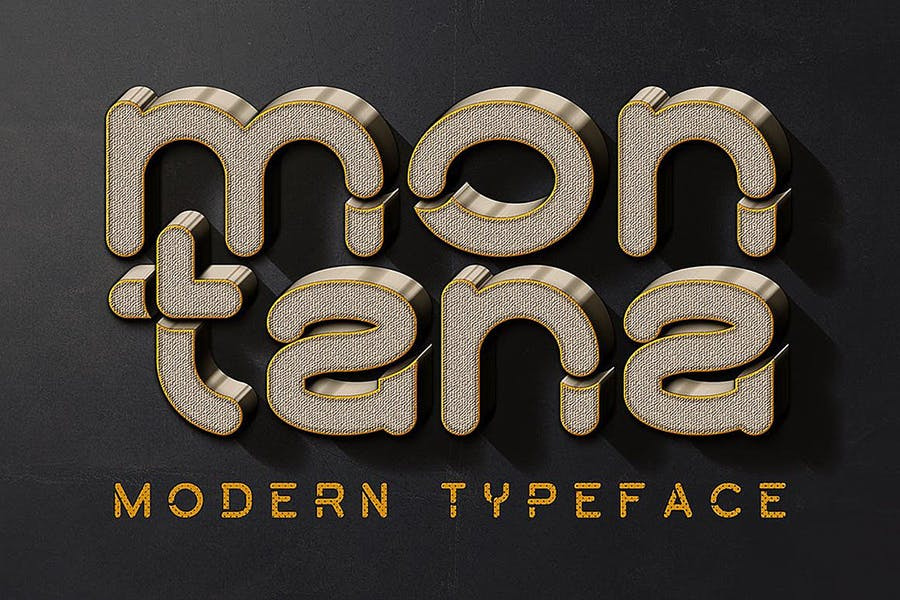
Montana Font
Montana Font is perfect for rugged outdoor brands, mountain adventure companies, wilderness lodge signage, authentic western restaurants, outdoor gear retailers, national park communications, ranch lifestyle branding, hiking trail materials, rustic cabin designs, and authentic American frontier heritage.
Montana Font creates excitement because it embodies the untamed spirit and majestic beauty of the American West with its bold letterforms and frontier-inspired character design. The font's strong presence and wilderness aesthetic instantly convey rugged authenticity and outdoor adventure, making any brand appear genuinely connected to western heritage and mountain culture. Its carefully crafted frontier details and mountainous character create an immediate sense of western authenticity that captivates audiences seeking genuine outdoor experiences, adventure quality, and products that celebrate the transformative power of western wilderness and frontier spirit.
The Montana Font family includes multiple weights and styles: Regular, Bold, Light, Medium, Italic, Condensed, Extended, Rugged, Western, and Frontier versions. Each variant maintains the font's signature western character while offering different levels of frontier styling and outdoor authenticity suitable for various adventure and western heritage applications.
This powerful typeface brings the authentic spirit of the American frontier into contemporary outdoor design with remarkable strength and western appeal. Montana Font Free Download provides outdoor brands and western heritage organizations with access to premium frontier-inspired typography that embodies the essence of mountain adventure and western cultural excellence. The font's rugged design and western authenticity make it ideal for businesses seeking to establish meaningful connections with outdoor enthusiasts and western culture communities who appreciate frontier heritage, adventure experiences, and the transformative power of connecting with authentic western wilderness traditions. Whether you're creating branding for outdoor adventure companies, designing materials for western tourism, developing communications for ranch experiences, or producing content for frontier heritage venues, this font delivers the authentic western atmosphere that resonates with audiences seeking genuine frontier experiences, outdoor quality, and the adventurous spirit that comes from connecting with authentic American western heritage. Its versatile design ensures outstanding performance across both rugged outdoor signage and contemporary digital adventure platforms while maintaining the character of authentic western typography. The font excels in applications requiring outdoor credibility and western appeal. Adventure industry professionals appreciate its ability to convey frontier authenticity while remaining highly functional for various outdoor communications and western promotional materials. The comprehensive character set includes western symbols and extensive international language support, making it perfect for global outdoor brands and international western heritage organizations seeking to communicate authentic frontier values, western adventure spirit, and mountain culture excellence to diverse worldwide audiences who embrace outdoor living, appreciate western heritage, and value the transformative power of genuine frontier experiences that connect people with the majestic beauty of the American West through authentic adventure, rugged exploration, and the timeless spirit of western frontier culture.